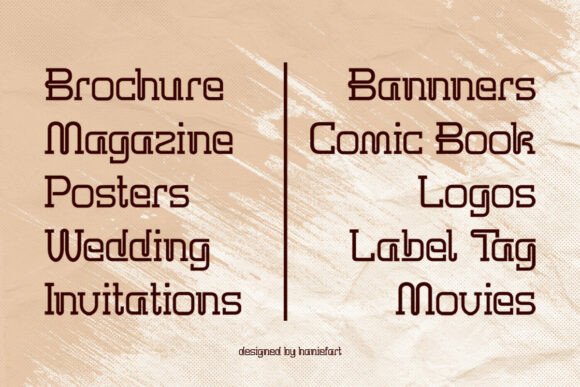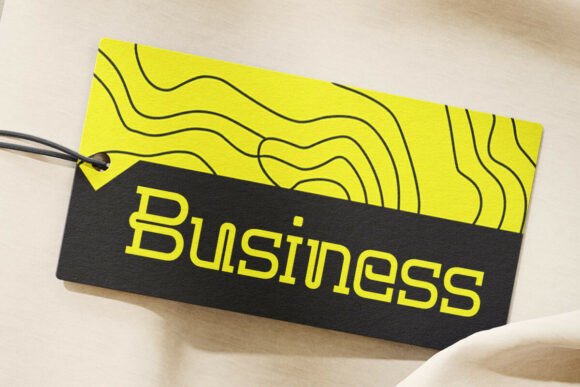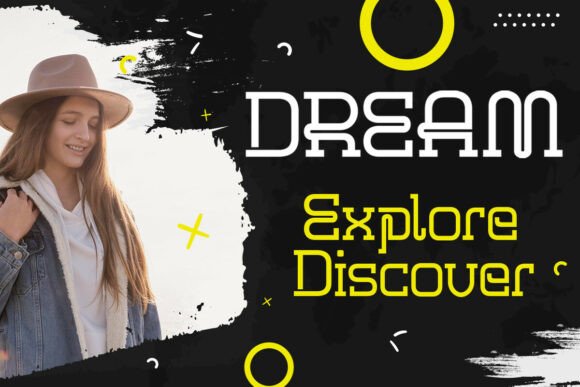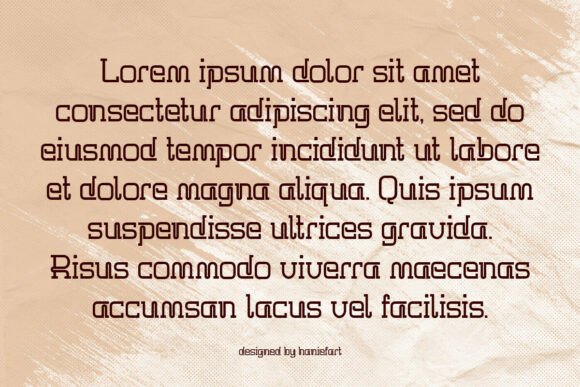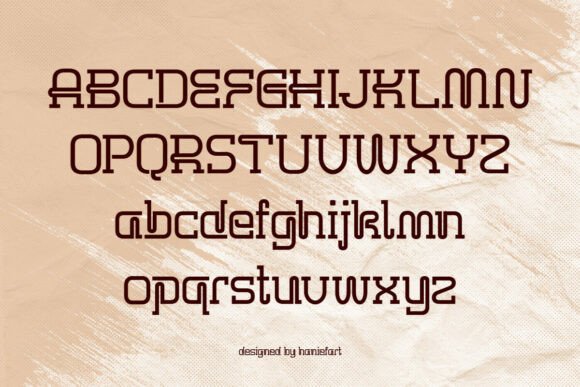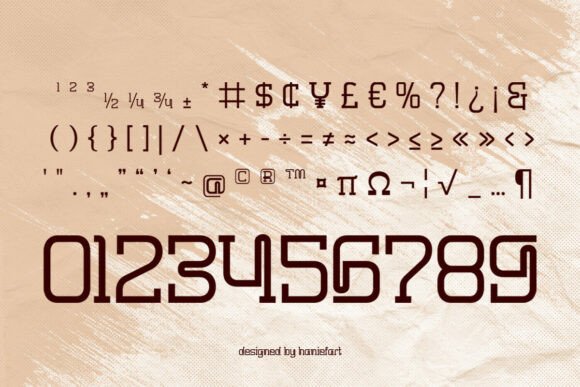
Discover the Sleek Charm of Agostia Font: Elevate Your Designs with Modern Sophistication
In the world of typography, fonts play a crucial role in conveying the tone and personality of a brand or project. Among the myriad of fonts available, Agostia stands out as a display font that exudes a sleek, modern charm combined with a welcoming warmth. Its thoughtful design strikes a perfect balance between simplicity and uniqueness, making it an ideal choice for designers and crafters looking to add a subtle, trendy feel to their projects.
The Versatility of Agostia Font
Agostia’s versatility is one of its most compelling attributes. This font integrates seamlessly into a wide range of canvases, from brand identities and business cards to comic and magazine covers. Whether you’re working on a corporate project or a creative endeavor, Agostia’s adaptability ensures that it complements your design without overpowering it. Its clean lines and modern aesthetic make it an excellent choice for various applications, including:
- Brand Identities: Establish a strong visual presence with Agostia’s contemporary look.
- Business Cards: Make a lasting impression with a font that exudes professionalism and style.
- Comic and Magazine Covers: Grab attention with Agostia’s bold and inviting appearance.
Beyond Traditional Applications: Agostia in Creative Projects
Agostia’s trendy charisma doesn’t stop at traditional applications. This font makes an impressive impact on various creative projects, including:
- T-shirt Designs: Add a touch of modern sophistication to apparel with Agostia’s stylish look.
- Banners: Create eye-catching banners that capture the essence of your message.
- Posters: Communicate your ideas with clarity and style using Agostia’s bold typography.
- Flyers: Stand out in a crowded space with Agostia’s unique and captivating appearance.
- Templates: Enhance your templates with a professional and contemporary font.
Why Choose Agostia Font?
So, what sets Agostia apart from other fonts? Here are a few reasons why designers and crafters are drawn to this versatile font:
- Contemporary Sophistication: Agostia brings a touch of modern elegance to any project.
- Highly Versatile: Suitable for a wide range of applications, from print to digital media.
- Easy to Read: Agostia’s thoughtful design ensures that it remains legible even at smaller sizes.
- Unique yet Simple: Strikes the perfect balance between standing out and fitting in.
Unleashing Agostia’s Potential
Whether you’re a seasoned designer or a crafting enthusiast, Agostia offers a world of creative possibilities. By incorporating this font into your projects, you can:
- Elevate Your Brand: Give your brand a modern and sophisticated look that resonates with your audience.
- Enhance Visual Impact: Create visually stunning projects that capture attention and leave a lasting impression.
- Streamline Your Design Process: With Agostia’s versatility, you can use it across multiple projects, reducing the need for multiple fonts.
In conclusion, Agostia font is a powerful tool for anyone looking to add a touch of contemporary sophistication to their designs. Its sleek charm, versatility, and trendy feel make it an ideal choice for a wide range of projects. By unleashing Agostia’s potential, you can elevate your designs, enhance your visual impact, and create a lasting impression on your audience.